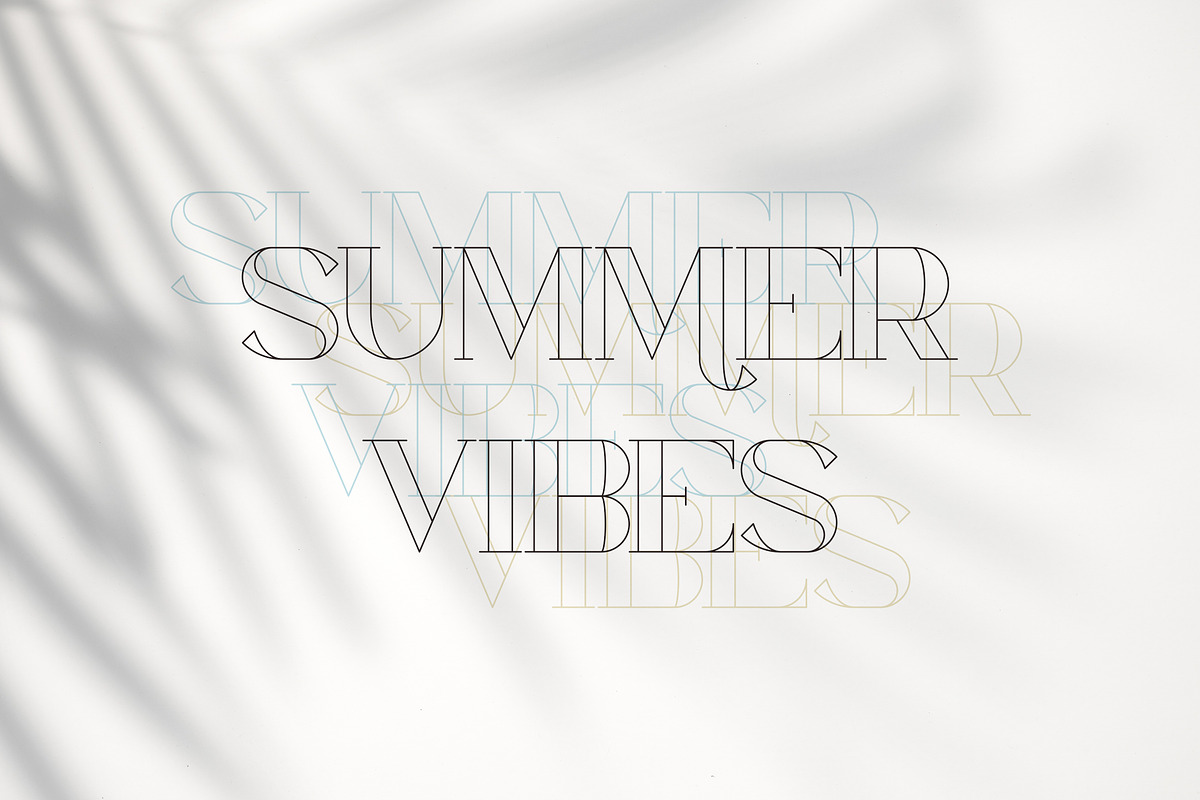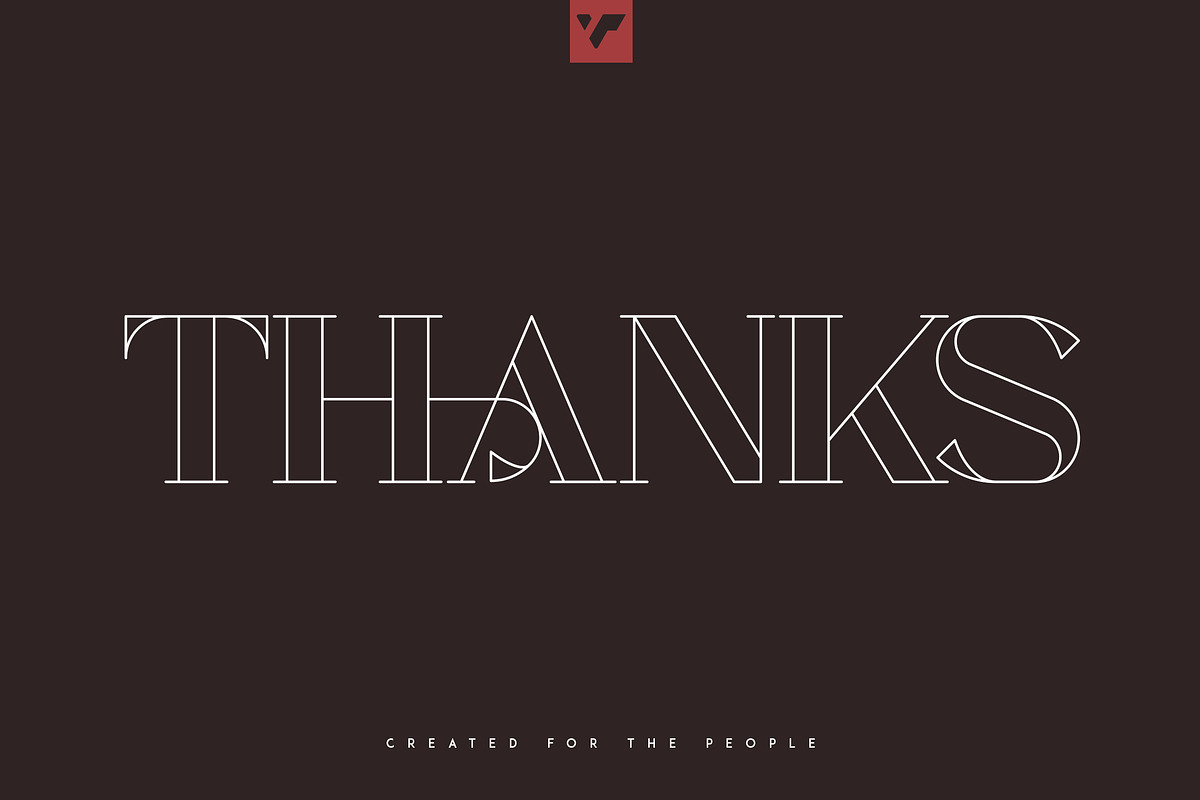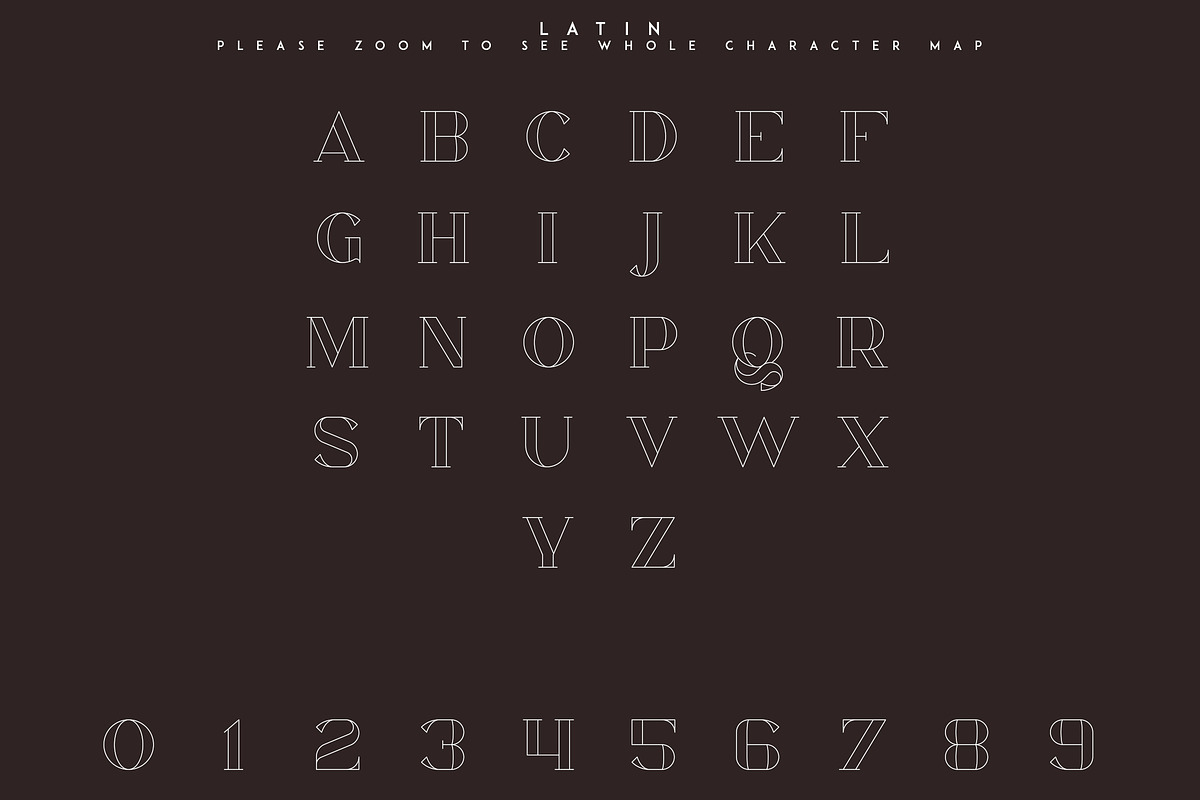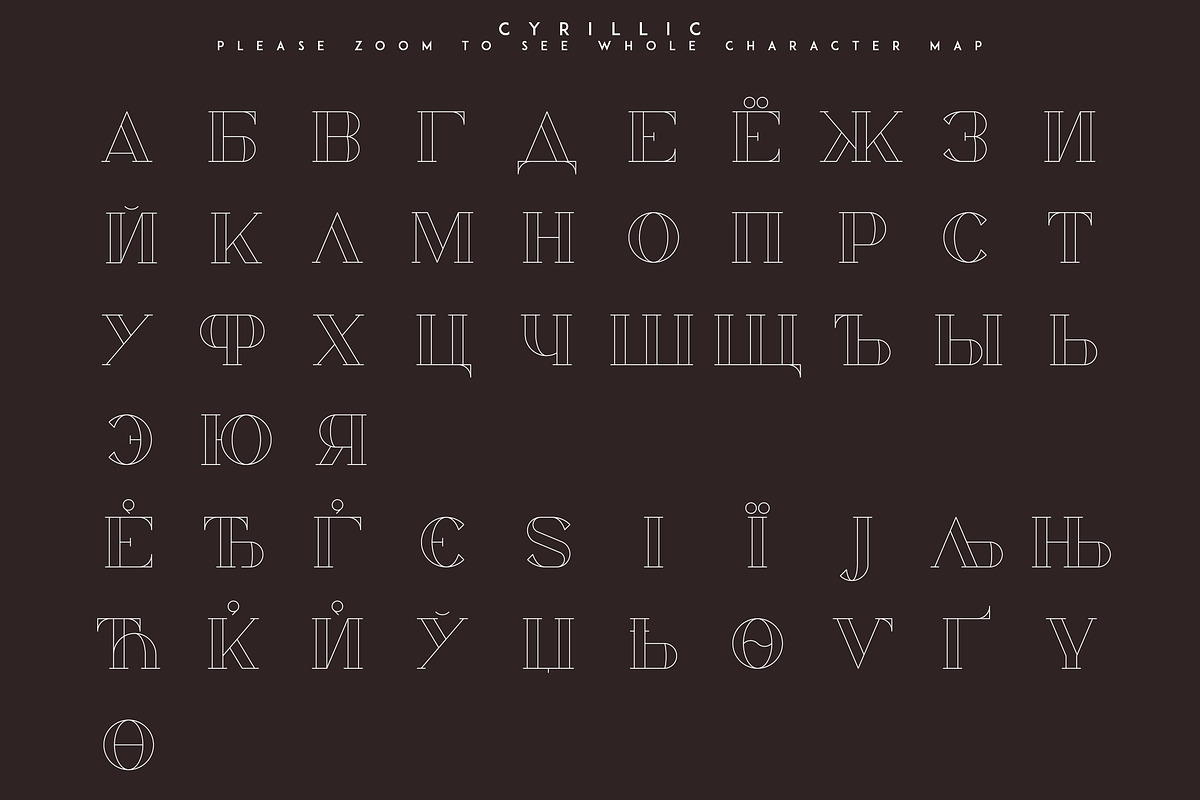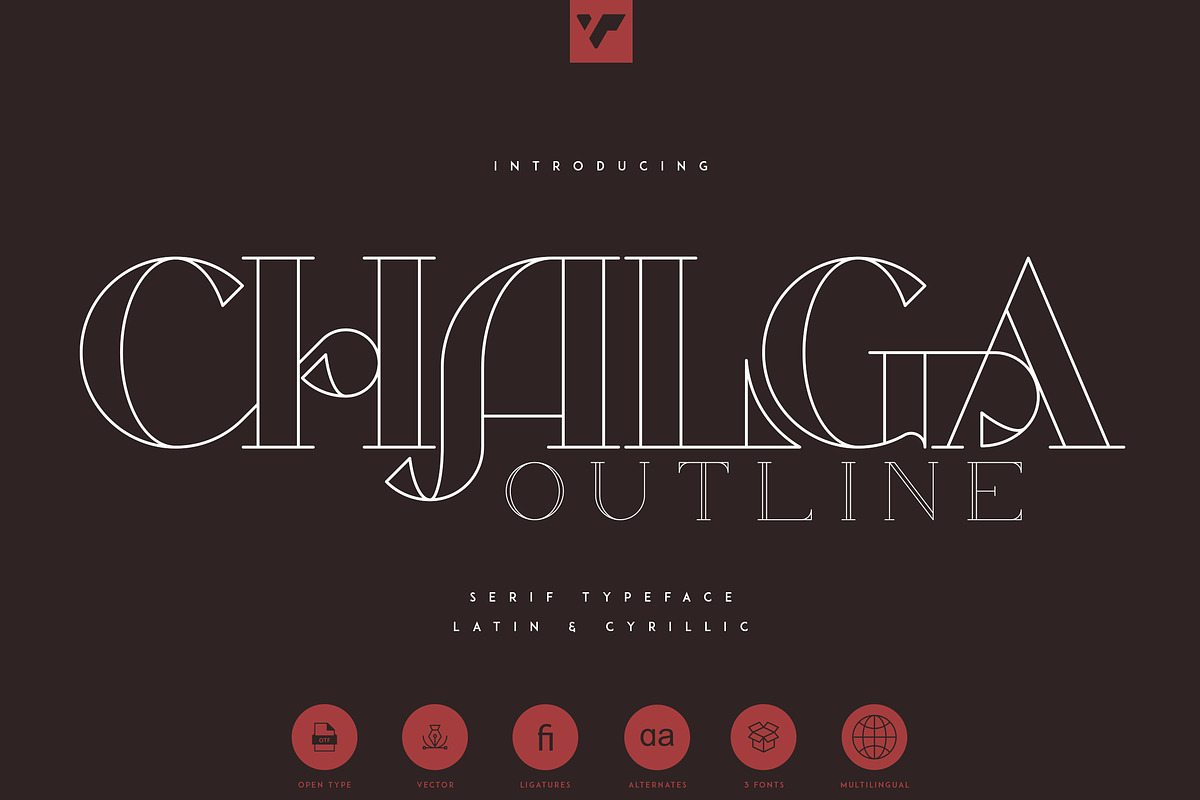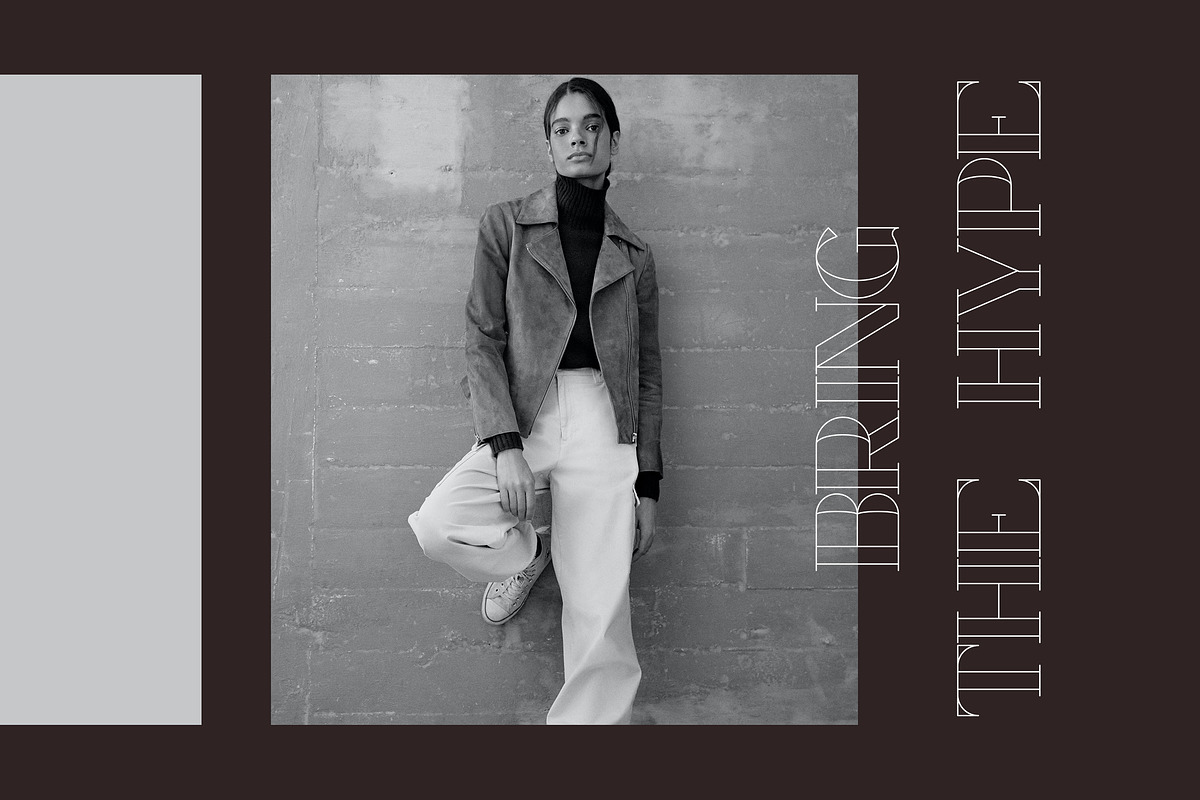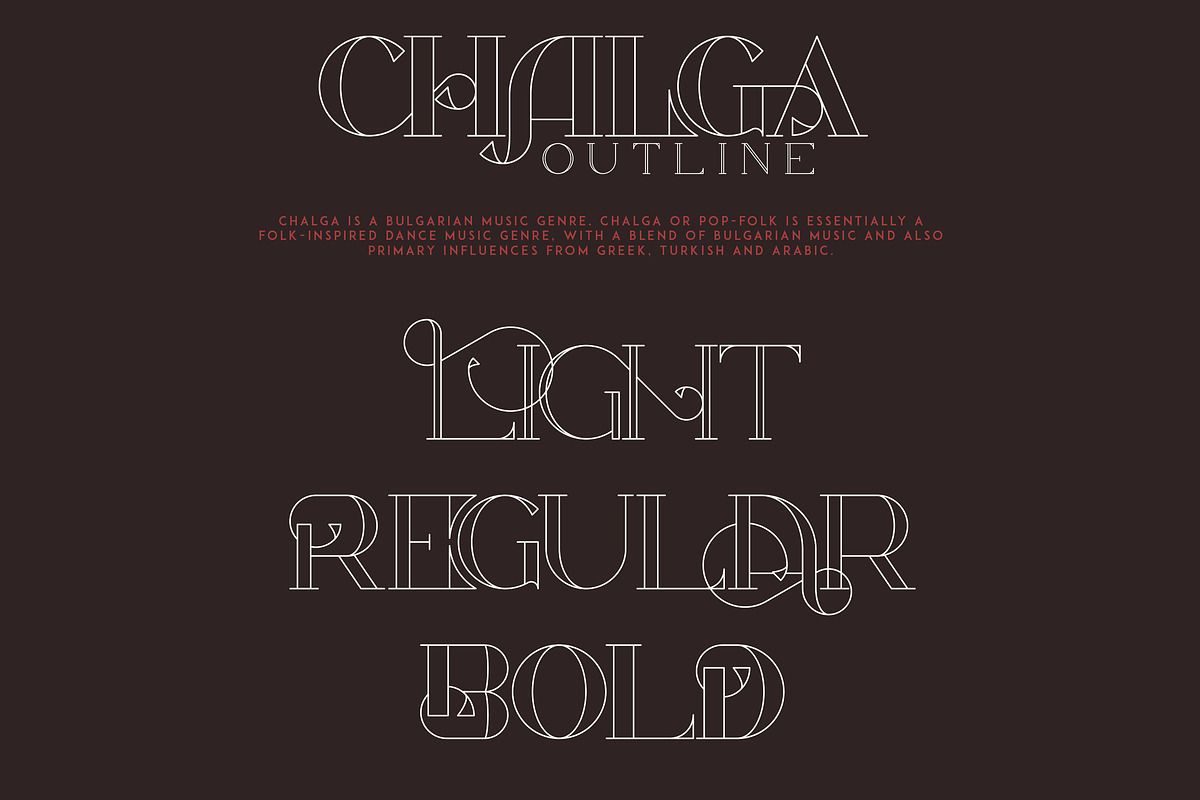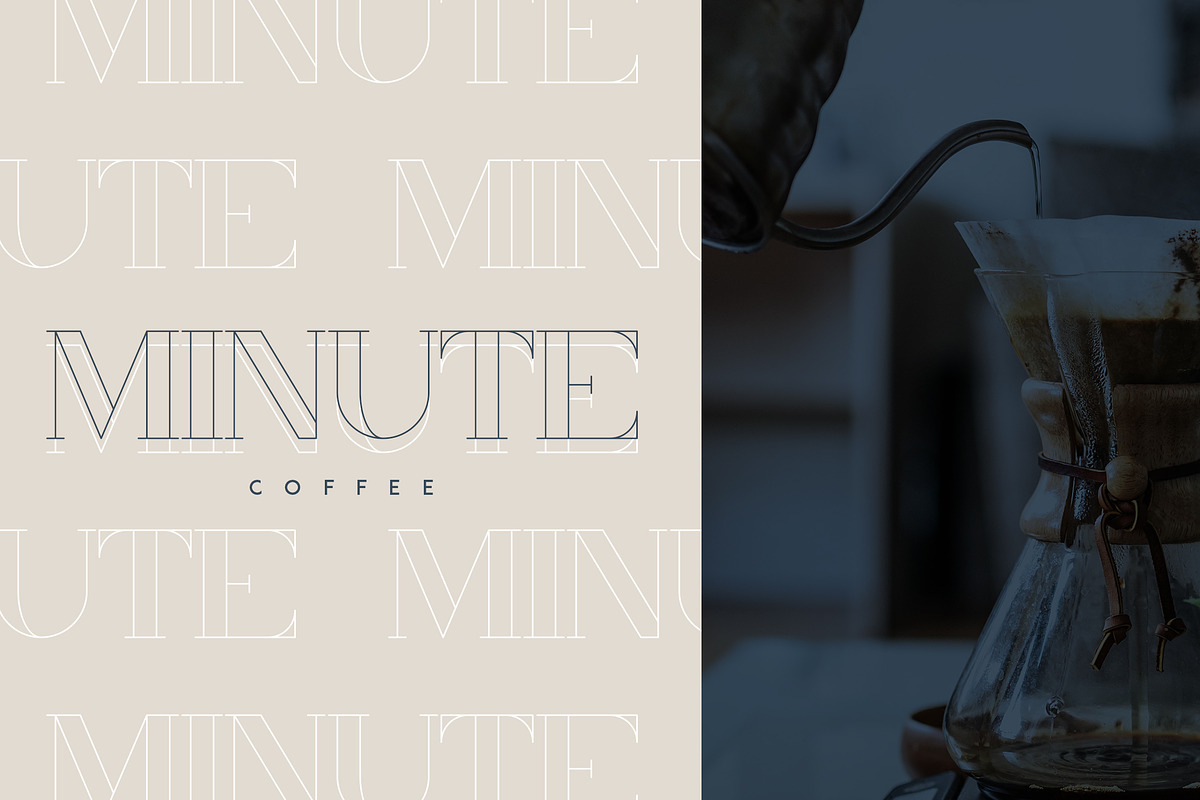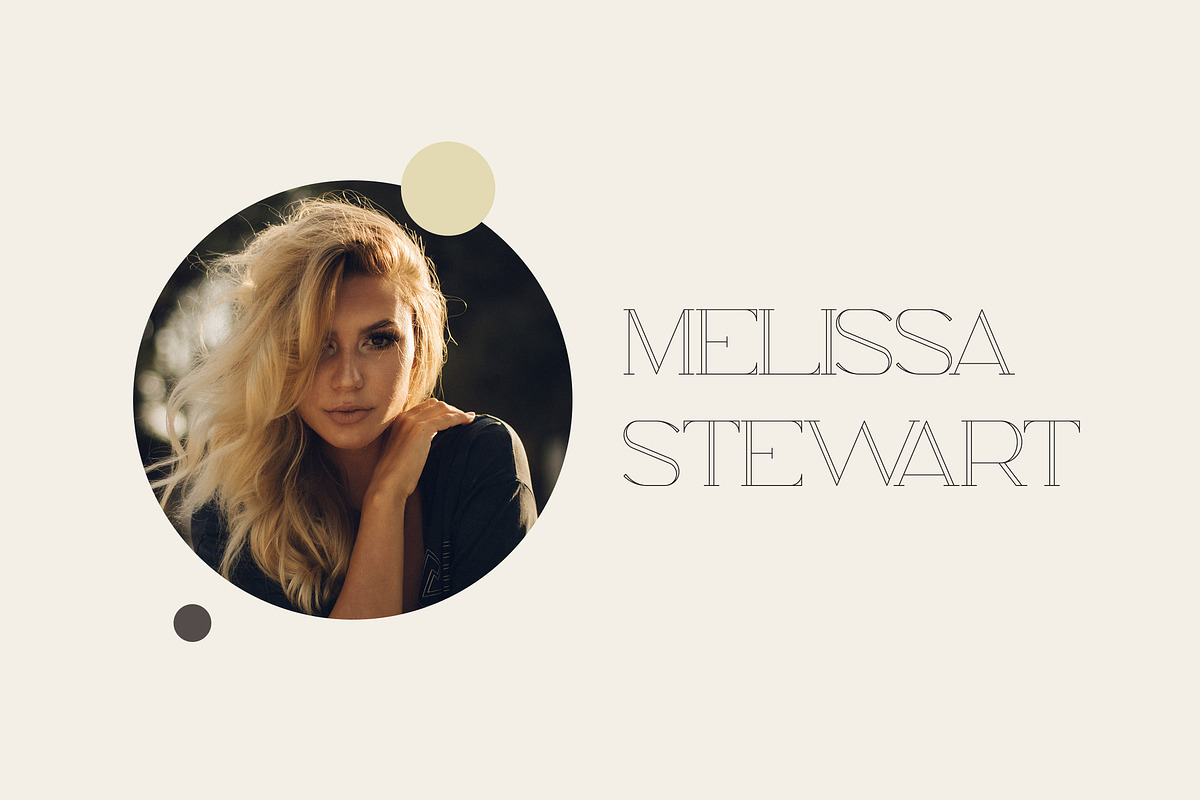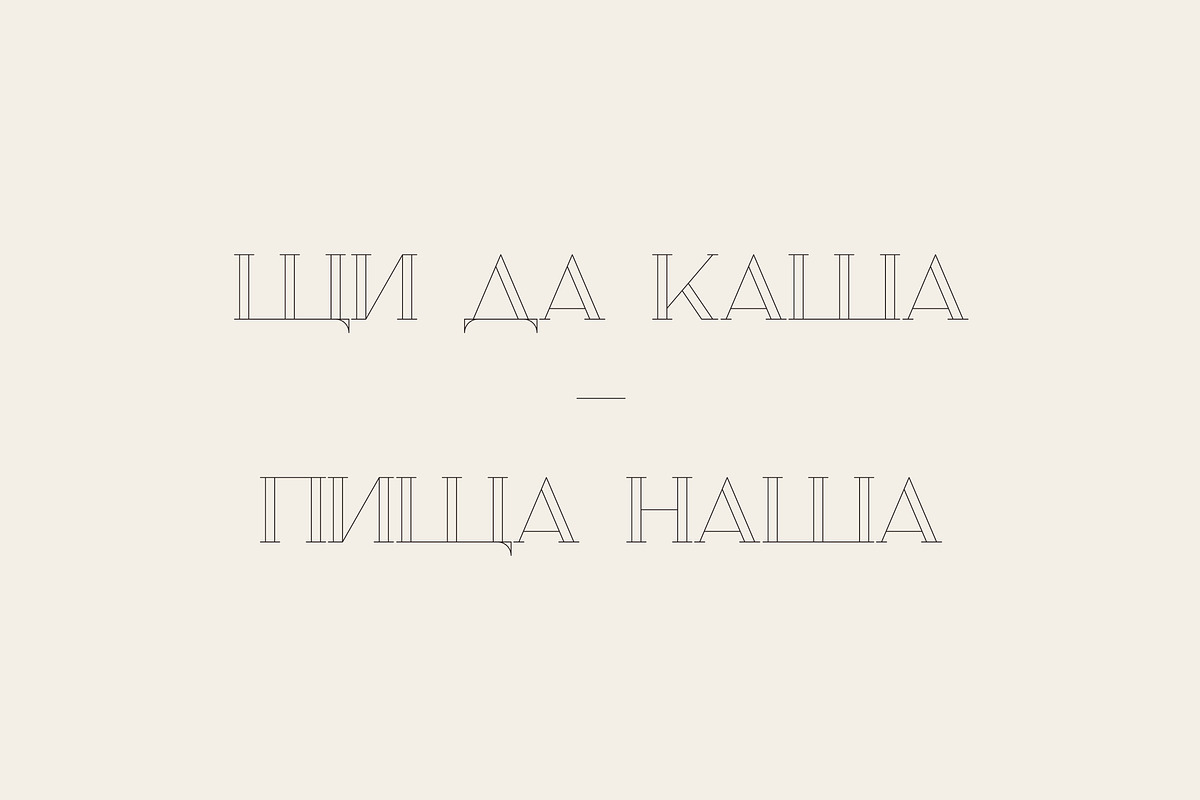
Chalga Outline - Serif Typeface
Introducing Chalga Serif Typeface - 3 weighs - Latin and Cyrillic support
Chalga is elegant, vintage typeface that contains 3 weights to enchant your next project. They have basic latin, advanced latin, basic Cyrillic and advanced Cyrillic character sets. Very versatile fonts that works great in large and small sizes.
Chalga is perfect for branding projects, home-ware designs, product packaging, magazine headers - or simply as a stylish text overlay to any background image.
- Uppercase, numeral, punctuation & Symbol
- Light
- Bold
- Basic and advanced latin character sets
- Basic and advanced Cyrillic character sets
- Alternate Glyphs
- Ligature Glyphs